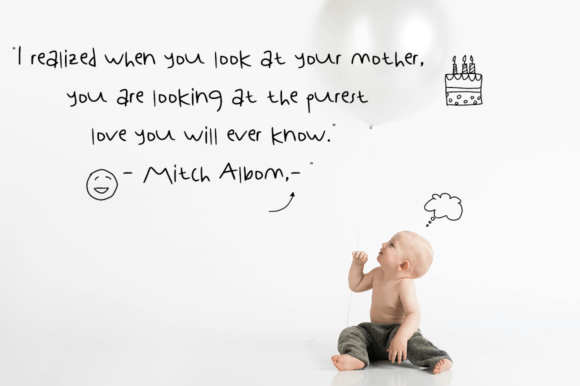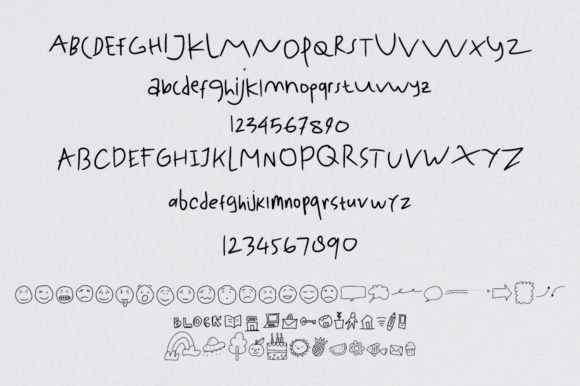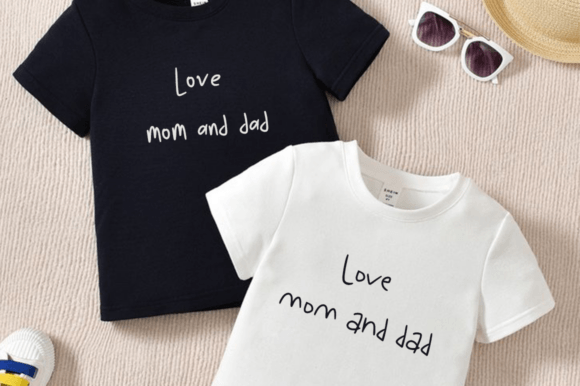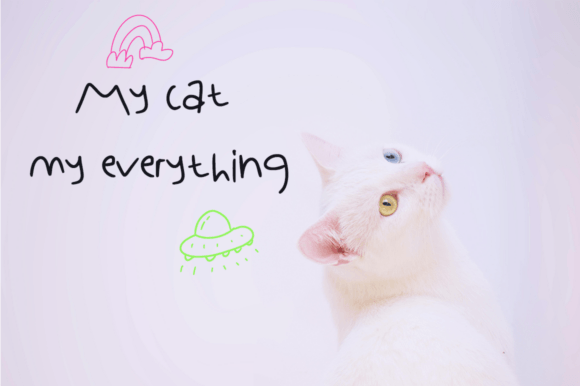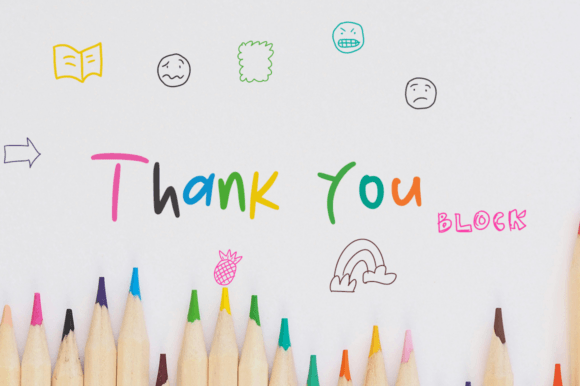
Introduction to Kids Handmade Font
Delve into the enchanting world of infancy with the whimsical ‘Kids Handmade Font Set Doodle.
’ This font brilliantly mirrors the unique artistry found in a child’s handwriting, making it perfect for endeavors that demand a hint of heartwarming persona Relish the joy of encapsulating the playful spirit of children’s penmanship and imbue an authentic, folksy charm to your artistry.
Key Features of Kids Handmade Font
Why Choose Kids Handmade Font?